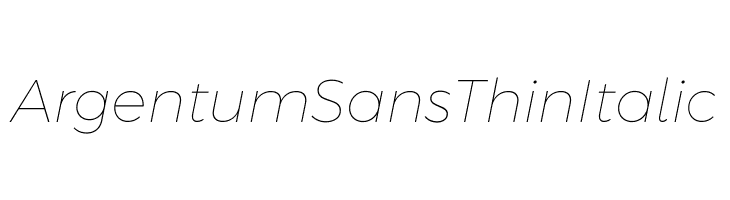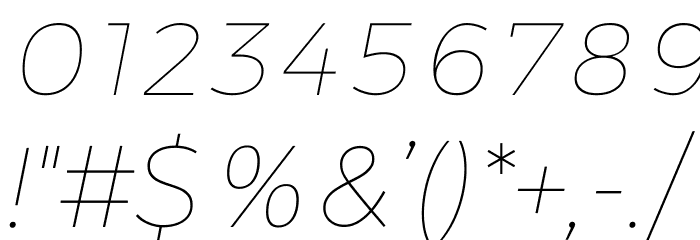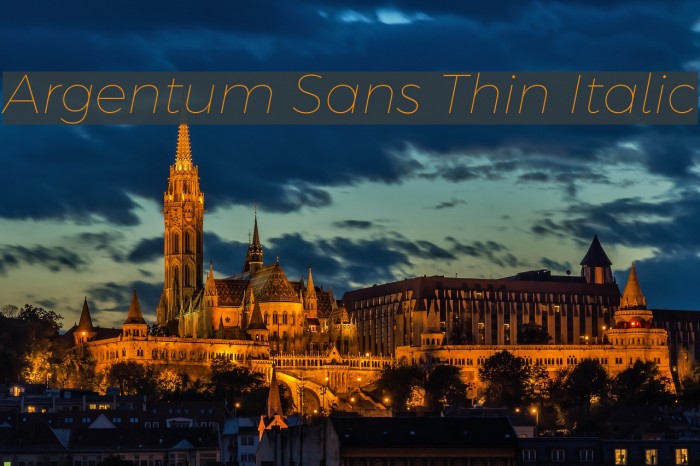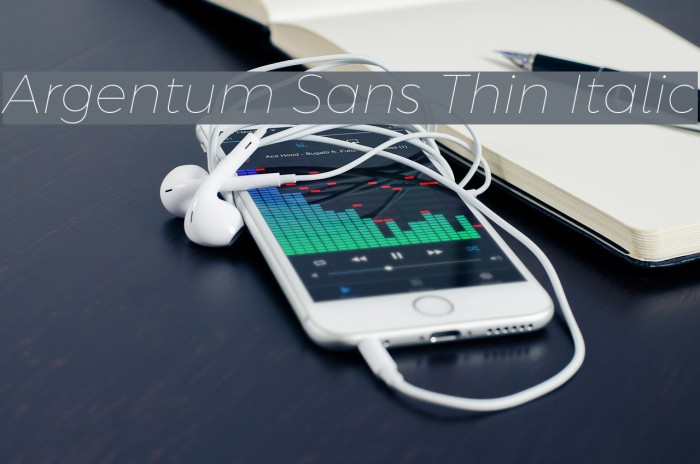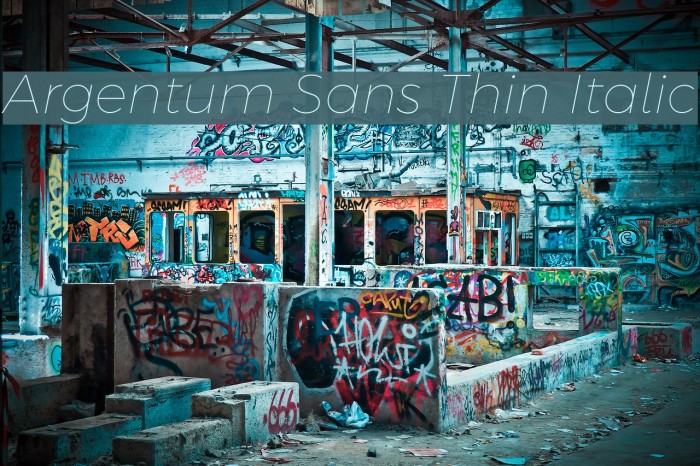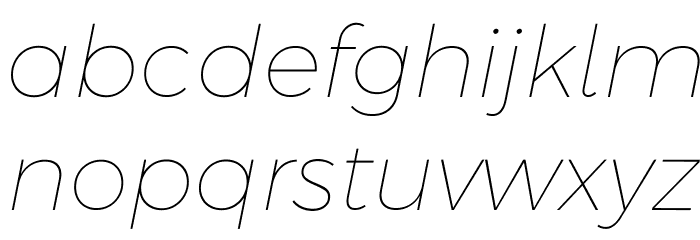
Argentum Sans Thin Italic Font
This font features a sleek and modern sans-serif style with a thin weight and italicized form. The characters are elegantly slanted, providing a sense of motion and fluidity. The design is minimalistic, with clean lines and a contemporary aesthetic. The uppercase and lowercase letters maintain a consistent style, while the numerals are clear and easy to read. Special characters are included, enhancing its versatility. The overall appearance is refined and sophisticated, making it suitable for a variety of design applications.
A modern, thin, italic sans-serif font with a sleek and elegant style.